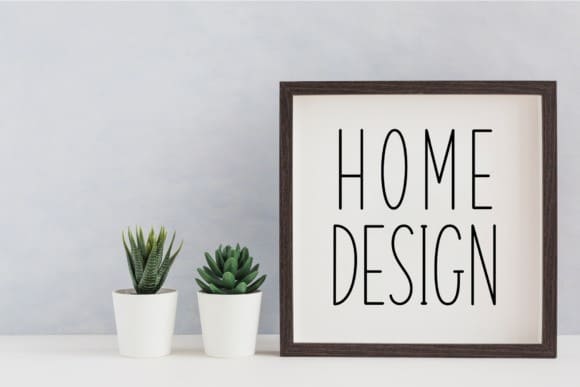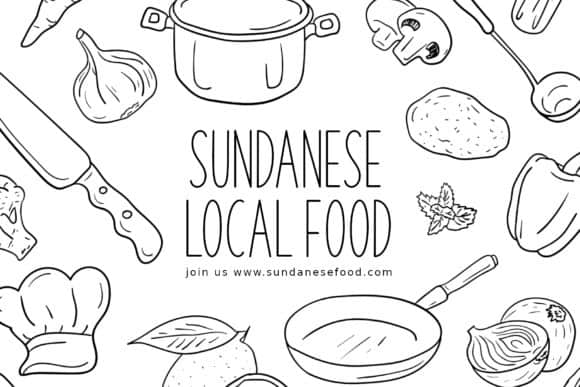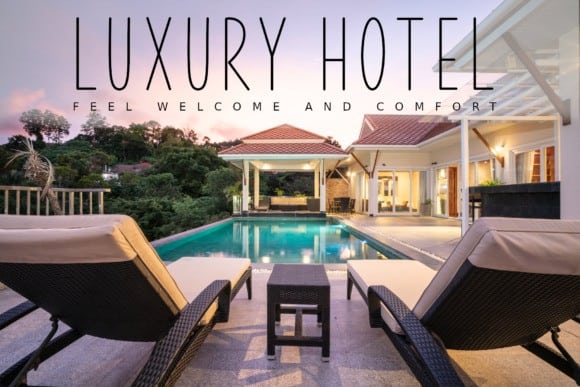
Kitchen Home Sans Serif Font
Kitchen Home Sans Serif Font is a clean, minimalistic style sans serif. This font is suitable for Title, Headlines, Logotype, and more. Made from font designer named AV Type. This typeface is a minimal, yet elegant and tall sans serif font. Suitable to a wide variety of designs due to its neat and simple style, Kitchen Home has the potential to become your favorite go-to font, no matter the occasion!